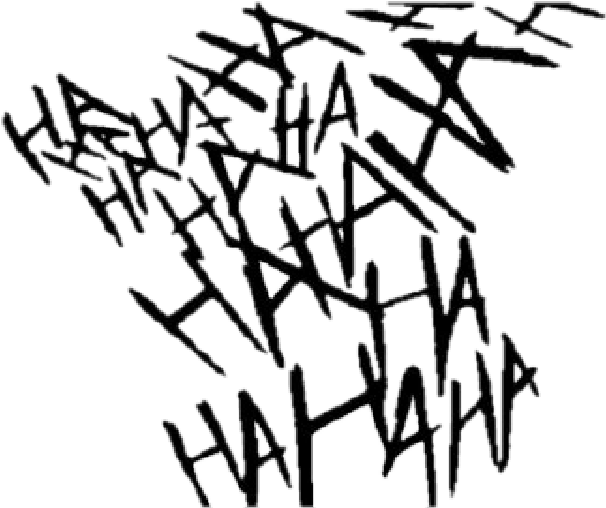
Joker is a psychological thriller movie based on dc comics characters. The text generator section features simple tools that let you create graphics with fonts of different styles as well as various text effects;
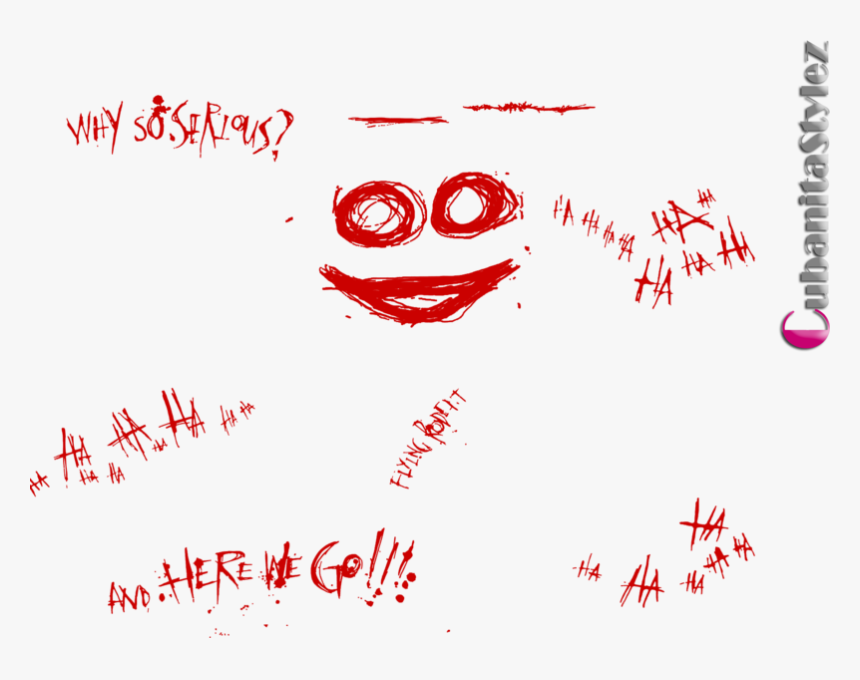
Joker is a psychological thriller movie based on.
Joker hahaha font download. This font was originally inspired by the word unstable, from that word i began to look at multiple unstable characters. Click to find the best 10 free fonts in the joker style. With one click use it easily.
The font used for the joker advertisment was really impressive however i felt as though it didn't really do his character justice. If you want to create professional printout, you should consider a commercial font. Joker is the perfect font for all your fun designs.
Gothic joker suggested by sneggleblech. Joker tattoos for men ideas and inspiration for guys. Joker tattoo body art harley quinn font.
This font was originally inspired by the word unstable, from that word i began to look at multiple unstable characters. Free download of gothic joker font. Please, talk with the author for commercial use or for any support.
The joker smiling font contains 154 beautifully designed characters. 81 4 30 11 published: Joker joaquin phoenix and heath ledger hahaha halloween png digital download, svg designs cameo3
This font was created by dipping my finger in runny ink. Please move if this is the wrong forum to pt this in, but i am looking for the joker font that looks carved, or anything near it. Every font is free to download!
Ad download 100's of fonts, graphic assets, actions, icons & more! What font was used in the joker movie logo and posters? You can find more information.
Whether you are planning to book your tattoo appointment soon or just getting ideas this list of 101 tattoos will help you choose. The fonts in use section features posts about fonts used in logos, films, tv shows, video games, books and more; Joker is a psychological thriller movie based on dc comics characters.
Haha joker laugh black text png image with transparent background for free & unlimited download, in hd quality! Joker is free for personal use only. ️ customize your own preview on ffonts.net to make sure it`s the right one for your designs.
You can use the joker to create interesting designs, covers, shop and store name and logos. In this page you can download an image png (portable network graphics) contains a haha joker laugh black text isolated, no background with high quality, you will help you to not lose your time to remove his original background. Haha joker laugh black text png image with transparent background for free & unlimited download, in hd quality!